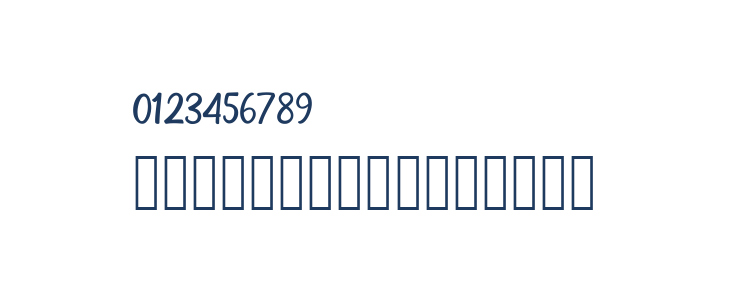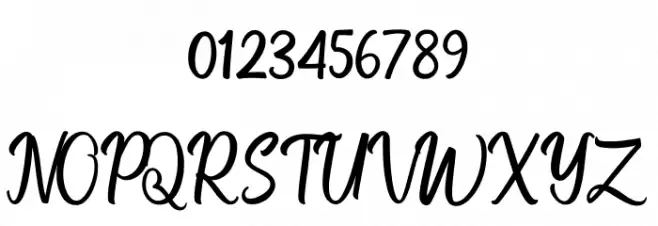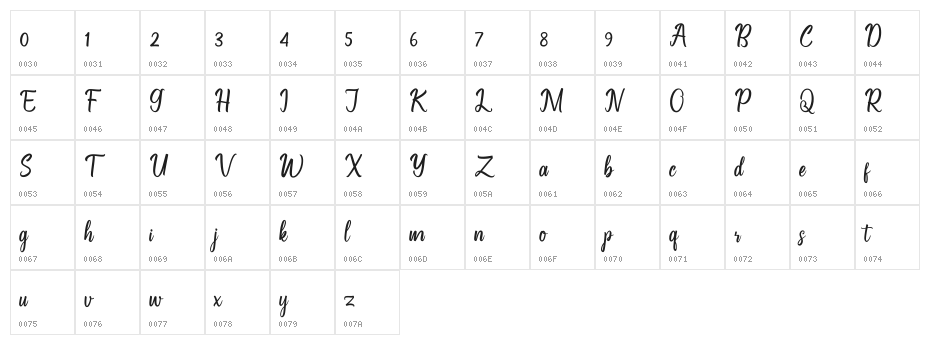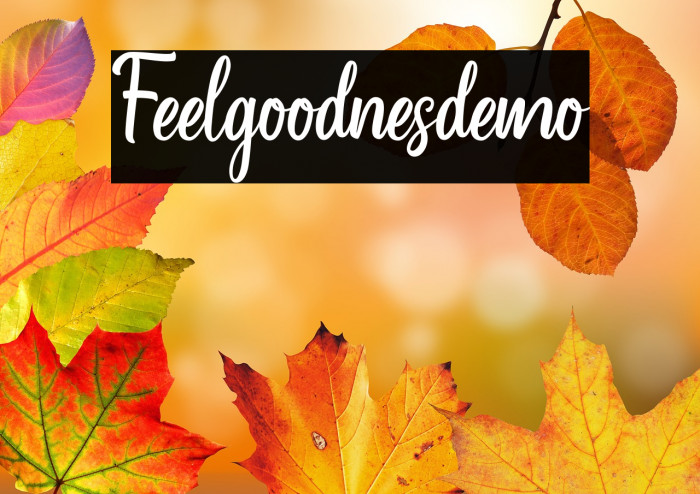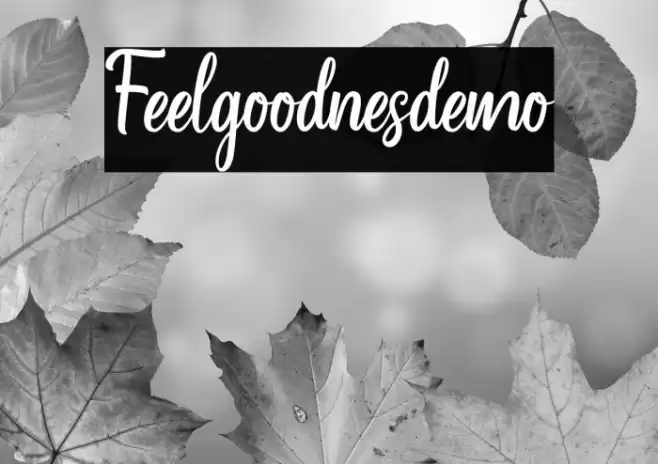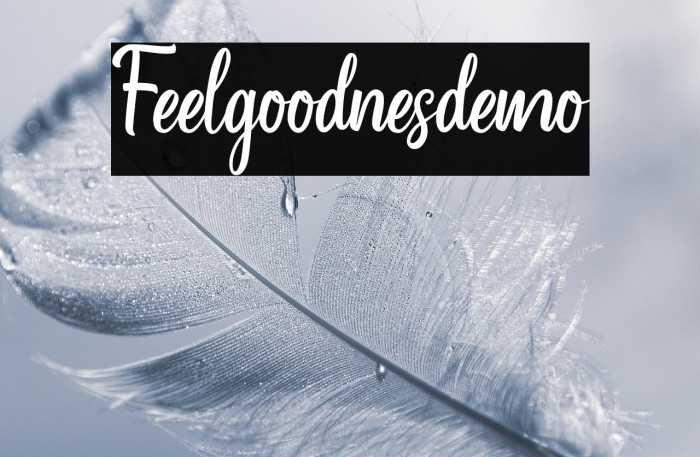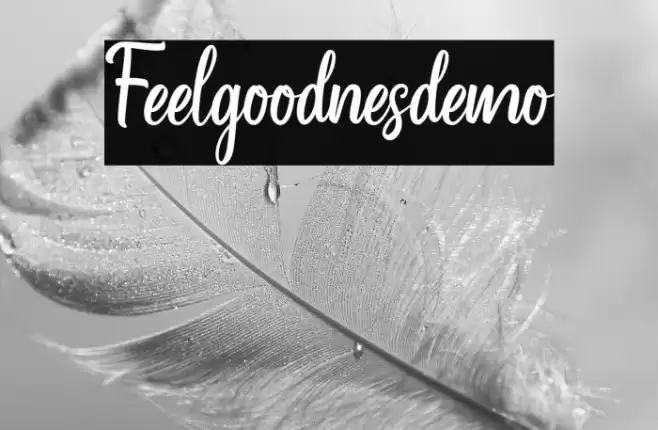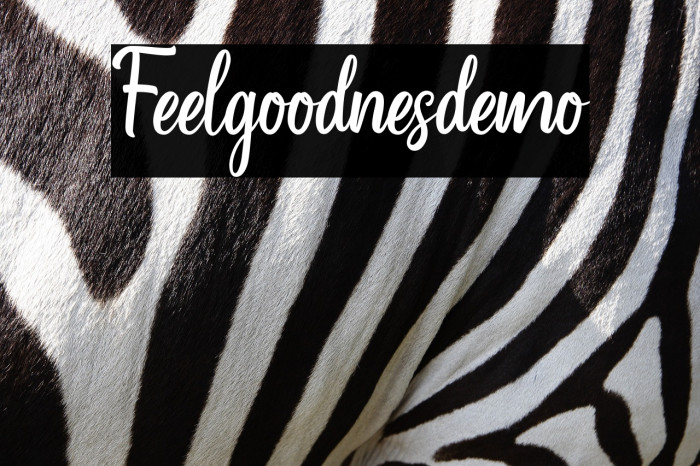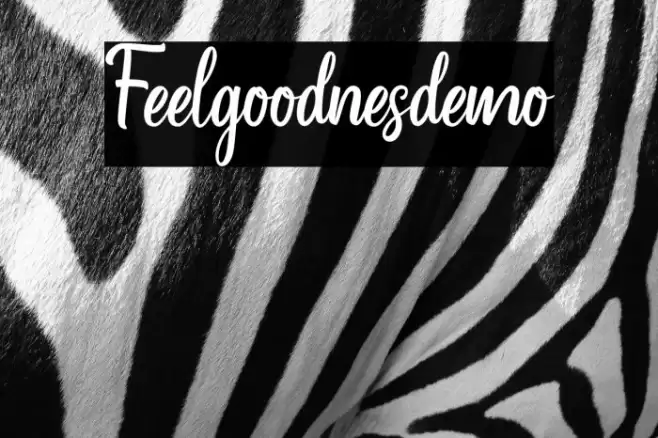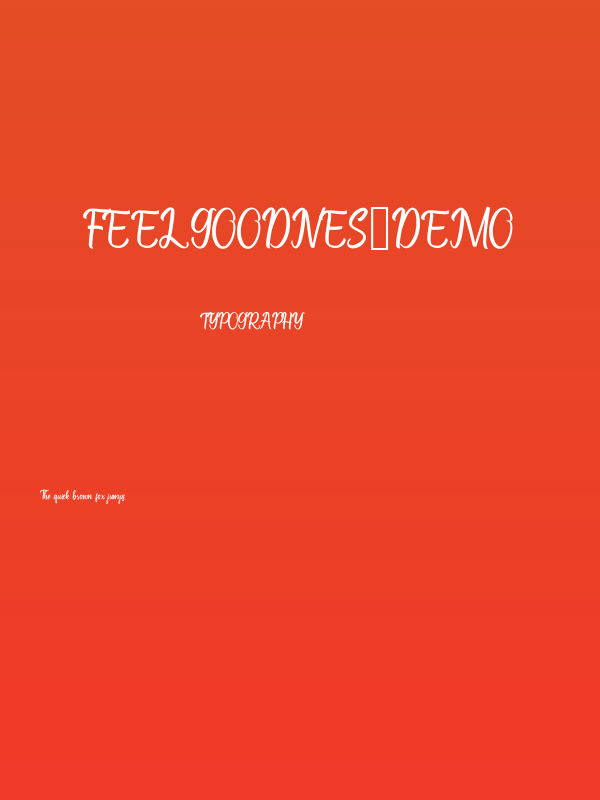
Feelgoodnes_demo Font
Feelgoodnes_demo Description
This font exudes a lively and elegant script style, characterized by its fluid and connected letterforms. The uppercase letters are bold and sweeping, with a graceful flow that adds a touch of sophistication. The lowercase letters maintain a consistent rhythm, enhancing readability while preserving the font's decorative appeal. The numerals are clear and well-proportioned, complementing the overall aesthetic. The special characters are thoughtfully designed, integrating seamlessly with the rest of the typeface. This font is perfect for projects that require a personal and stylish touch, such as invitations, branding, and editorial design.
Use CaseHeadlines, Logos, Invitations
Proposed ProjectsIdeal for invitations, branding, editorial design, and any project requiring a stylish, personal touch.